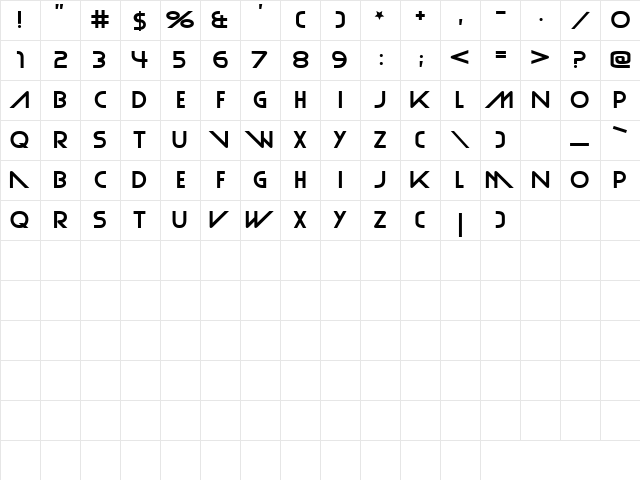
Plain Cred Regular
| Foundry | Larabie Fonts |
Design Context for Plain Cred Typeface
Plain Cred is a composed and adaptable typeface that performs quietly and consistently across a wide range of design contexts.